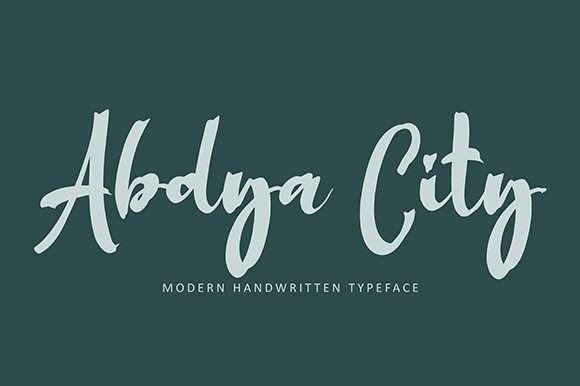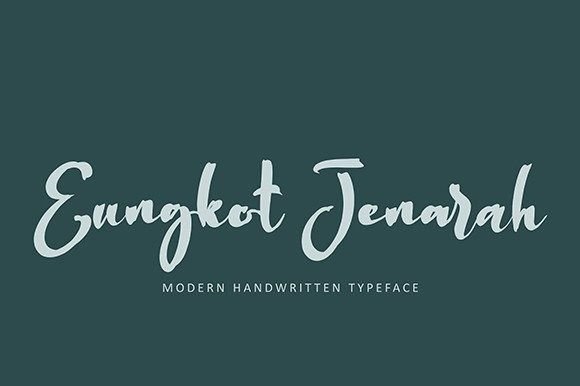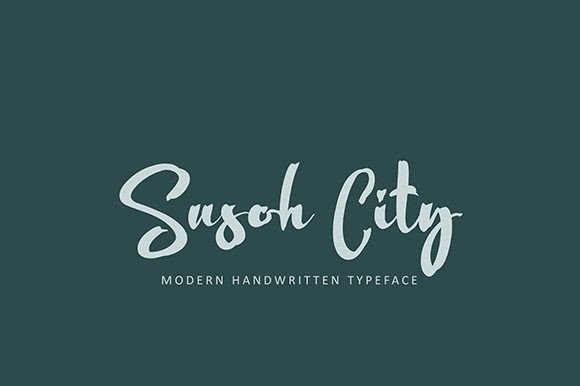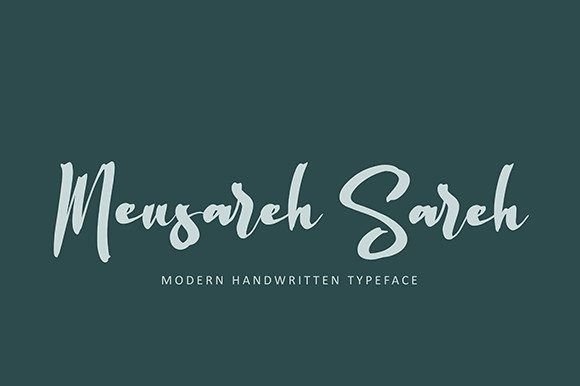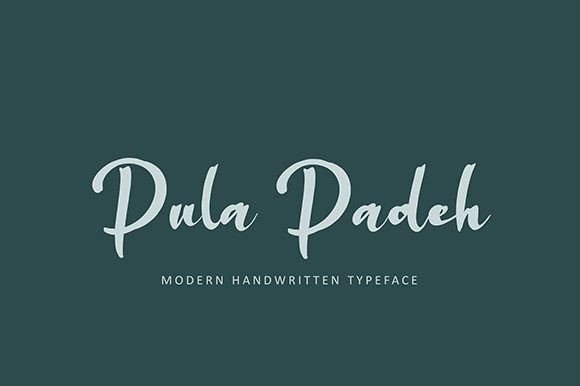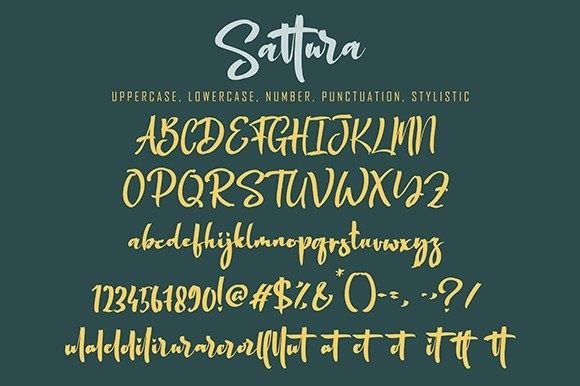
Introduction to Sattura Font
Have you ever found yourself sitting at your desk, pen in hand, brainstorming ideas for your next creative project? The blank page stares back at you, and suddenly, the perfect phrase or quote pops into your head. You quickly jot it down, and the words seem to dance across the page in a beautiful, handwritten script. That’s the magic of Sattura Font – a quirky handwritten font that captures the essence of your creative vision.
| 👤 Author | Pineungtype & Missinklab |
For designers, Sattura Font is a valuable resource that adds a personal touch to any project. With its unique, hand-written feel, it’s perfect for websites, svg designs, home decor, branding, blogs, logos, invitations, and more. And the best part? It’s available for free download, making it an accessible design resource for creatives of all levels.
Whether you’re looking to add a touch of whimsy to your next design project or simply want to bring a personal element to your branding, Sattura Font is the perfect choice. Its high-quality, transparent background makes it easy to work with, and with PUA encoding, you can access all of the amazing glyphs and ligatures with ease.
Key Features of Sattura Font
- High-quality, professional font designed for creative projects and various design resources.
- Available for free download with a transparent background, ideal for use in digital design.
- Features a unique, modern design aesthetic with a high-resolution display, suitable for use in print and digital media.
- Includes multiple font sizes and styles, allowing for flexibility and customization in design projects.
Honest Review: Sattura Font
I recently had the chance to work with the Sattura Font, and I must say it’s been a great experience. This font is a design resource that offers a high-quality solution for any creative project.
One of the things that stands out about the Sattura Font is its versatility. It’s available for free download, which makes it an excellent option for designers who are looking for a reliable and cost-effective solution. The font also features a transparent background, which gives designers the flexibility to use it in various design scenarios.
Here are some of the things that work well with the Sattura Font:
- ✨ High-quality design: The Sattura Font is designed to provide a professional look and feel, making it an excellent choice for designers who want to create high-quality designs.
- ✨ Versatility: The font is available in multiple styles and weights, making it easy to use in various creative projects.
- ⚠️ Limited customization options: While the Sattura Font offers a range of styles and weights, it may not offer the level of customization that some designers are looking for.
Overall, I’m impressed with the Sattura Font. It’s a high-quality design resource that offers a lot of value for designers who are looking for a reliable and cost-effective solution. With its transparent background and free download option, it’s an excellent choice for any creative project.
For optimal results, use the Sattura Font on a transparent background to create a clean and modern design aesthetic. Experiment with different font sizes and colors to add visual interest to your project. Additionally, consider combining the Sattura Font with other design resources, such as images or shapes, to create a high-quality design.
The Sattura Font is versatile and can be used in a variety of creative projects, including logos, branding materials, and marketing materials. Its high-quality design makes it an excellent choice for both personal and professional projects.